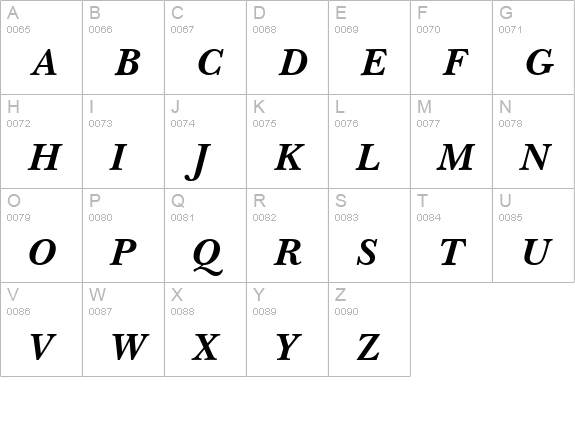
Baskerville Handcut BOLDITALIC Font Details
Baskerville Handcut BOLDITALIC font is a striking and elegant typeface that exudes sophistication and class. Its bold and italic design adds a touch of modernity while still maintaining a timeless appeal. The handcut details give this font a unique and artistic flair that sets it apart from other fonts. What makes Baskerville Handcut BOLDITALIC font even more desirable is that it is available for free download at FontsMarket.com. This means that you can easily access and use this beautiful font for your various design projects without any cost. Whether you are creating invitations, posters, logos, or any other design work, Baskerville Handcut BOLDITALIC font is sure to make a bold statement and leave a lasting impression. Download it today and elevate your designs with this exquisite typeface.